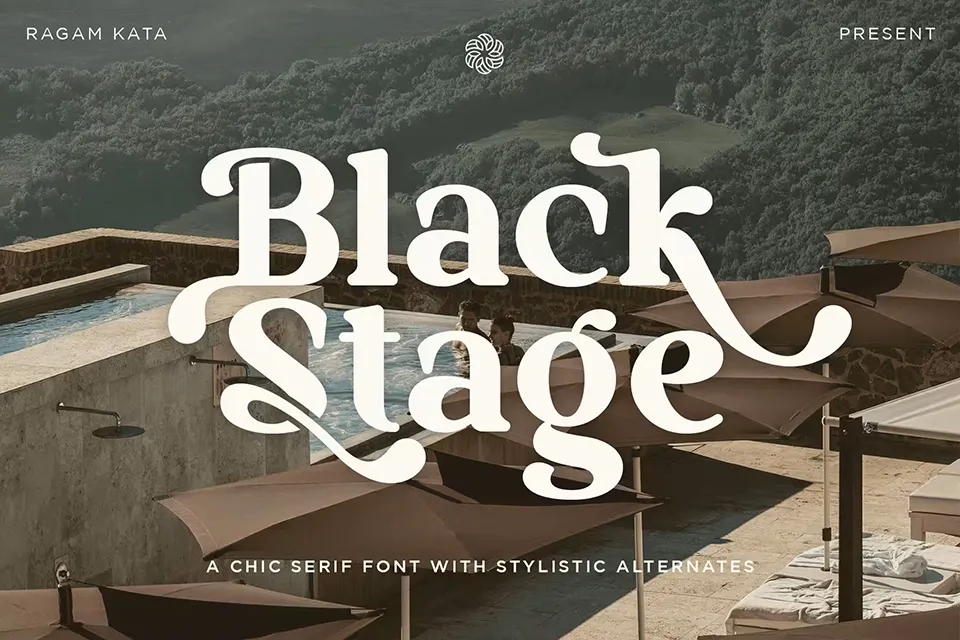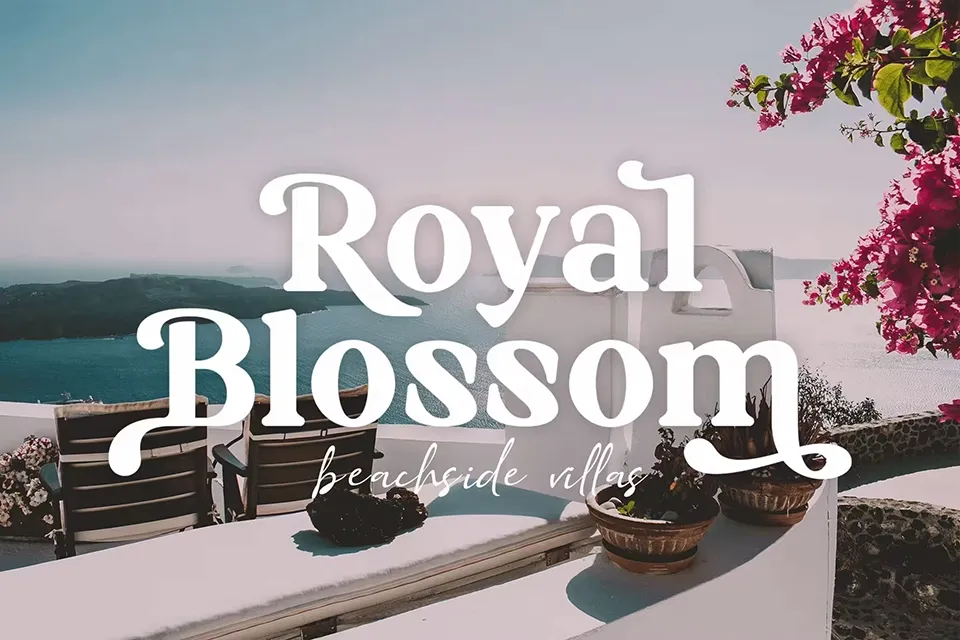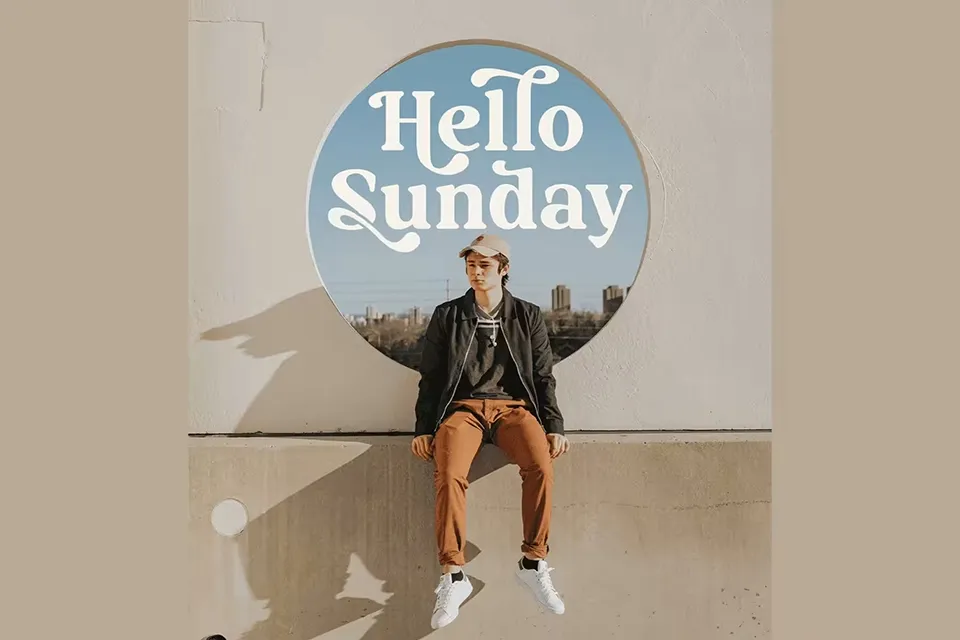
Black Stage Font
Black Stage Font is a charming and eye-catching retro serif font that combines elegant serif styling with a classic vintage touch. Featuring stylistic alternates, this font offers flexibility for unique text appearances, making it ideal for titles, posters, banners, invitation cards, branding, and more. Its timeless elegance and dynamic letterforms add a special flair to any creative project.